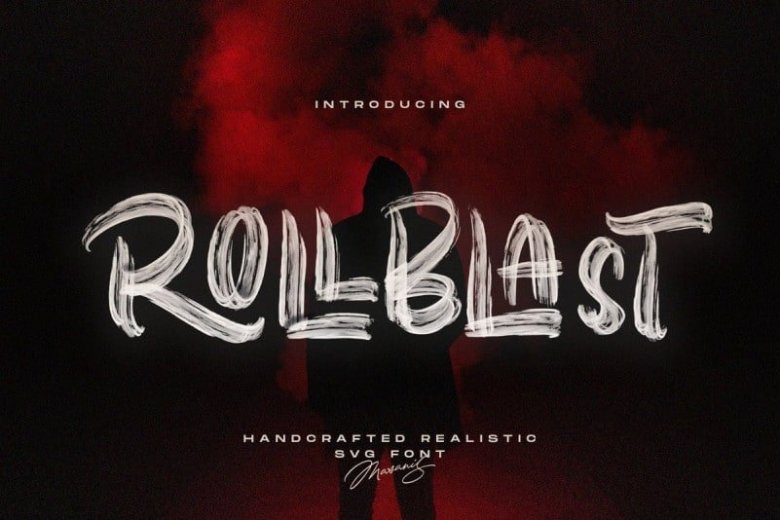
Rollblast Brush Font
Introducing Rollblast, a font that is scratched with a brush pen, to get a natural texture, so this font will display the characteristics of the hand.  It contains a full set of lower & uppercase letters, a large range of punctuation, numerals, and multilingual support.
This font is very suitable for a variety of places such as clothing, poster, tittle books, stationery designs, quotes, branding, logos, invitations, greeting cards, t-shirts, packaging designs and more.